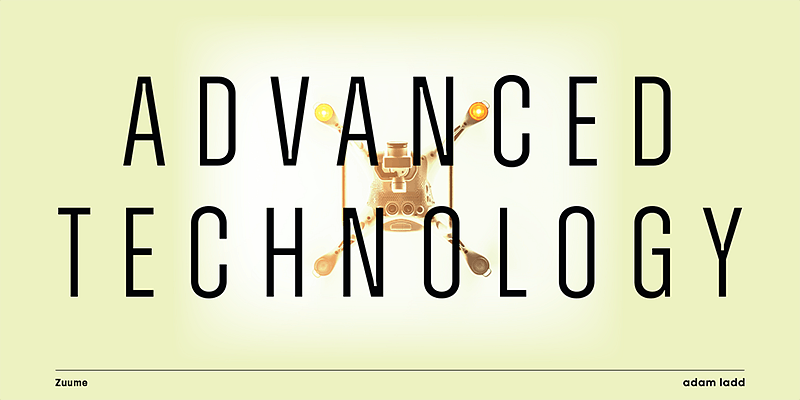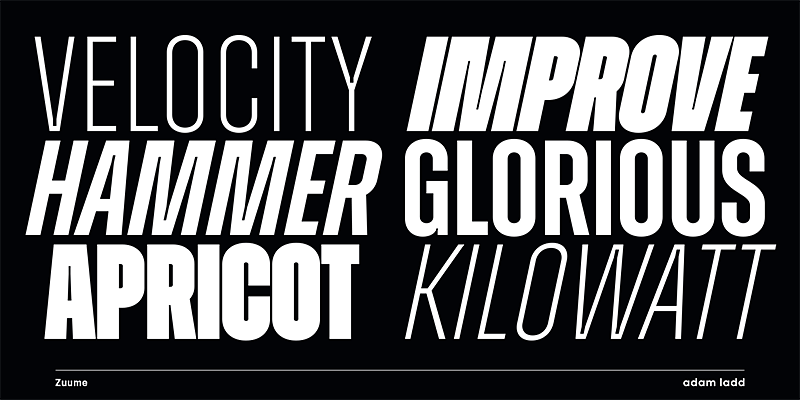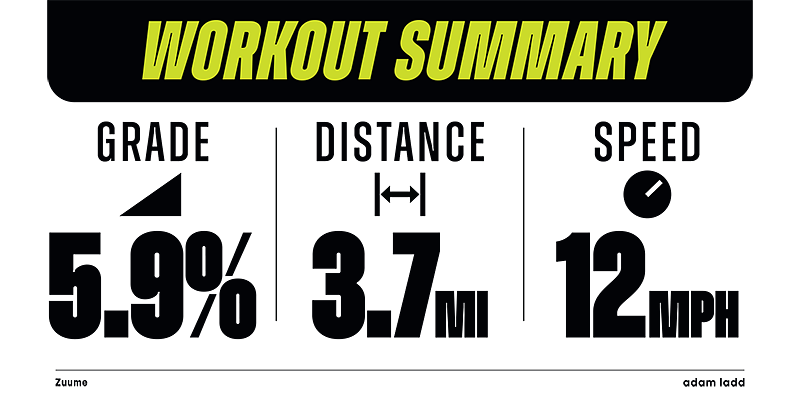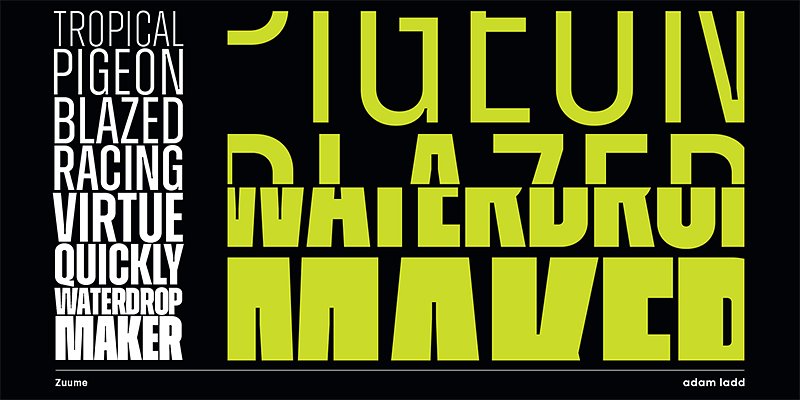
Zuume and Zuume Cut are certifiable look-at-me powerhouses. These typefaces are built to invigorate magazine headlines, media brands, fitness packaging, in-your-face entertainment, or anywhere else designers need maximum impact. The design has a sharp, technical feel that looks great, tightly spaced, and stacked for a visual punch. The sliced-out segments in Zuume Cut create more movement, aggression, and intentional speed. The robustly sturdy Zuume and Zuume Cut will leave an indelible mark!